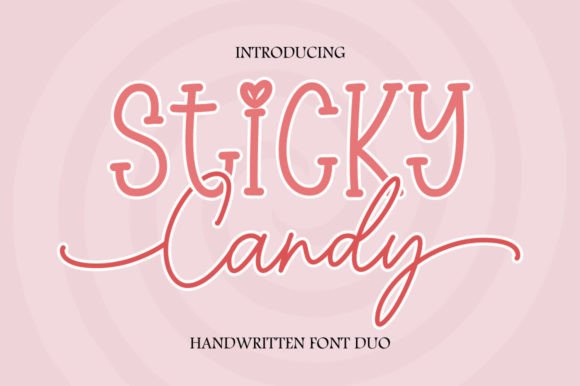
Prepare yourself to embark on an incredible design journey with the captivating Sticky Candy Duo Font, a pair of handwritten fonts crafted specifically to add a touch of cheer and sophistication to your creative endeavors. Created by the talented Graphix Line Studio, this font family is the perfect choice for those seeking a playful and charming addition to their design arsenal.
With its carefully crafted curves and whimsical strokes, Sticky Candy Duo Font oozes personality and warmth. Its hand-drawn style evokes a sense of authenticity and playfulness that will instantly captivate your audience. Whether you're creating cheerful designs for a kids' ministry, designing eye-catching social media graphics, or adding a touch of whimsy to your personal projects, Sticky Candy Duo Font is the perfect choice.
Imagine the joy on your customers' faces when they see your designs come to life with the vibrant charm of Sticky Candy Duo Font. Its carefully crafted characters are designed to work seamlessly together, creating harmonious and cohesive designs. Let your creativity run wild as you explore the endless possibilities of this versatile font family.
Immerse yourself in the world of Sticky Candy Duo Font and let your imagination soar. Its playful nature and cheerful demeanor will add a smile to your face and spark your creativity. Embrace the joy of handwritten fonts and let Sticky Candy Duo Font transform your designs into works of art.